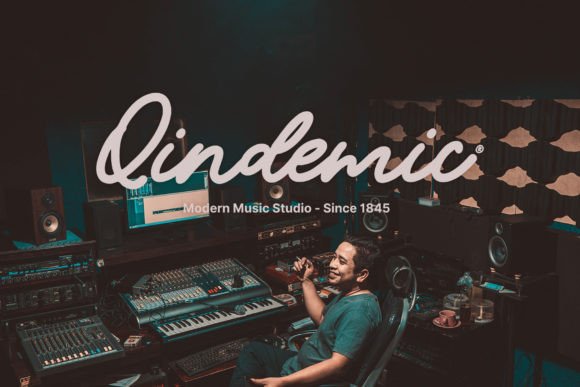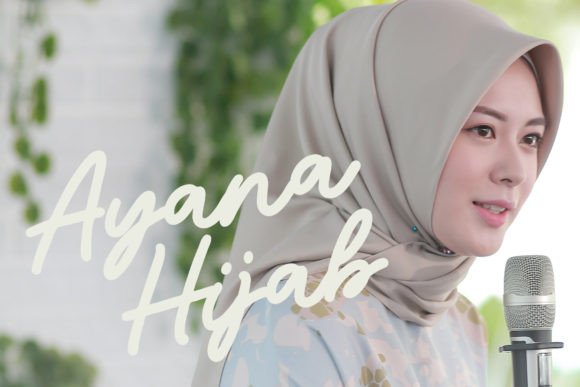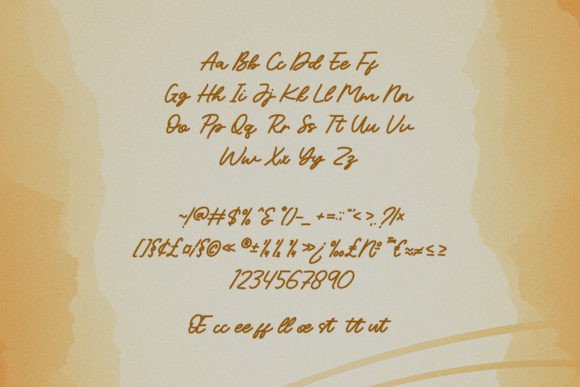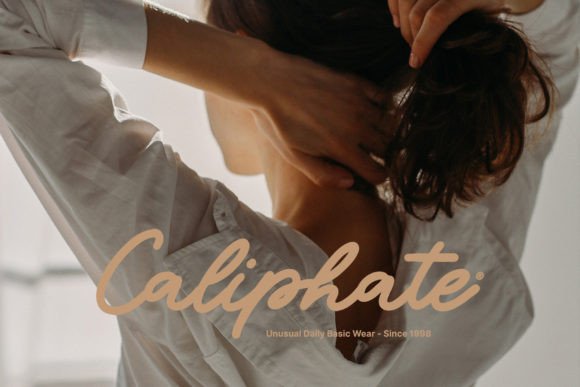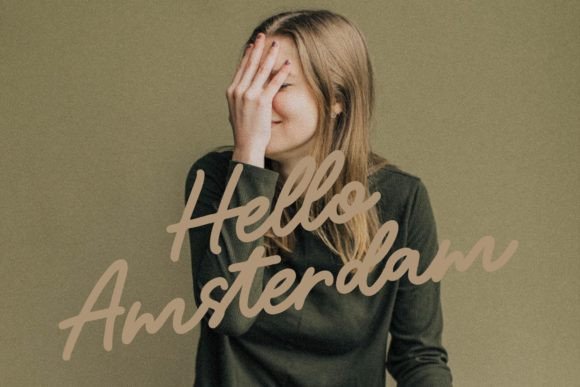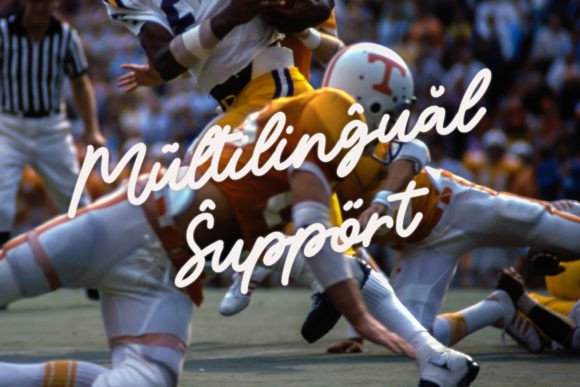
Discover the Timeless Elegance of the Bestopia Font
Have you ever found yourself staring at a blank canvas, waiting for the perfect spark to ignite your creativity? For designers, this moment can be both exhilarating and intimidating. As we search for the ideal font to bring our vision to life, we often find ourselves drawn to something that’s both elegant and approachable. Enter the Bestopia Font, a delicate and flowing handwritten script font that has captured the hearts of designers worldwide.
With its beautiful and well-balanced characters, the Bestopia Font is the perfect companion for any design project. Whether you’re working on a wedding invitation, a brand logo, or a website, this font is sure to add a touch of sophistication and refinement. Its versatility and timeless appeal make it a valuable asset for designers, allowing them to create a wide range of designs that are both visually stunning and effective.
Bestopia Font Key Features
- Unique Characteristics: Bestopia Font features a unique blend of modern and vintage elements, with intricate details and ornaments
Designer Review: Bestopia Font
Overall, I was pleasantly surprised by the Bestopia Font. ✨ Its unique blend of modern and vintage elements caught my eye, and I enjoyed experimenting with it in different design projects.
- The Bestopia Font has a great balance of legibility and aesthetics, making it suitable for a wide range of applications, from body text to headings.
- It comes in a variety of weights and styles, allowing designers to add depth and visual interest to their designs.
- The font is highly customizable, with options for adjusting font sizes, line heights, and letter spacing.
- Bestopia Font is also well-suited for digital applications, with clear rendering on various screen sizes and resolutions.
- The Bestopia Font may not be the best choice for projects that require a highly formal or traditional tone.
- Some users may find the font’s unique style a bit too quirky or overwhelming.
- While the font is highly customizable, it may require some adjustments to achieve the desired look and feel.
Overall, I would recommend the Bestopia Font for designers who are looking for a unique and versatile typeface that can add a touch of personality to their designs.
Tips for Getting the Most Out of Bestopia Font
To maximize the effectiveness of Bestopia Font, use it for:
- Titles and headings for a touch of elegance
- Body text for a clean and modern look
- Logos and branding for a unique and memorable identity
Bestopia Font is ideal for: